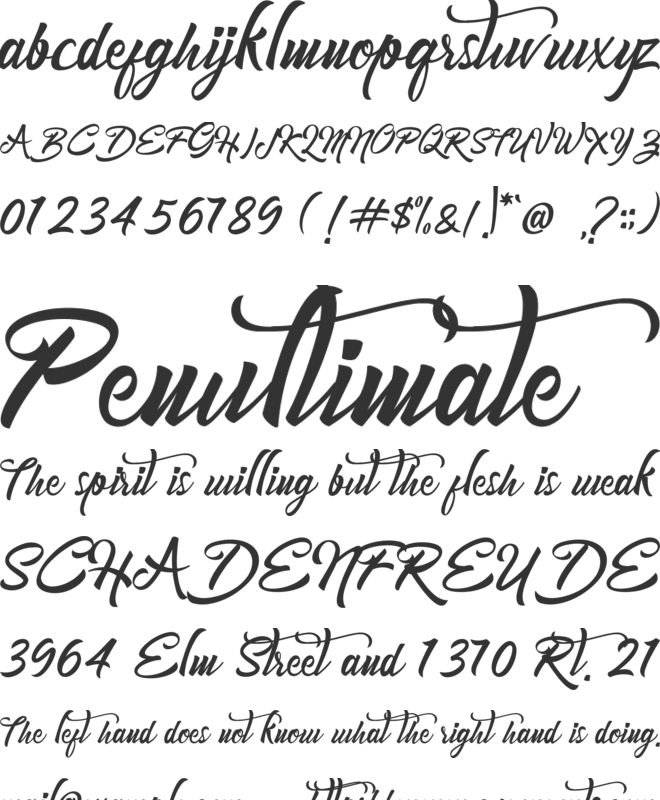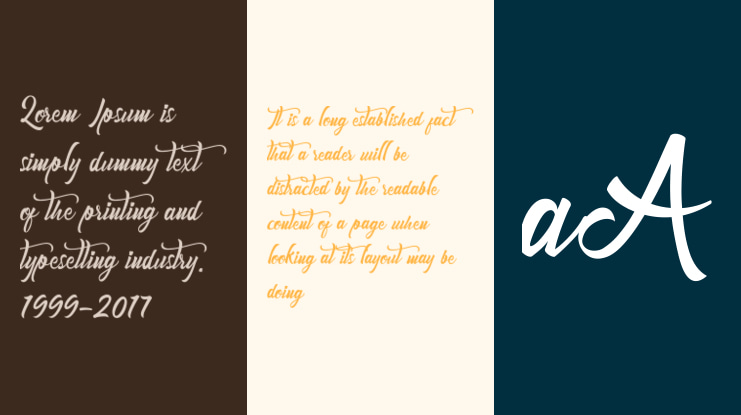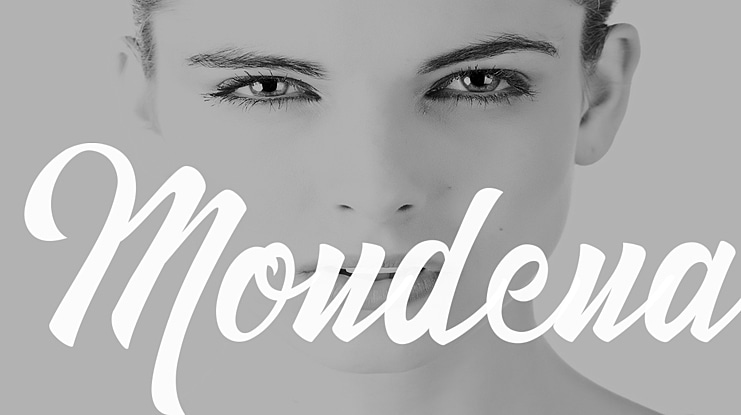
Mondena Font
MONDENA FONT
Mondena is a Luxury bold script font. This collection of scripts is perfect for your logo product or wedding invitations.
Hans Co.™